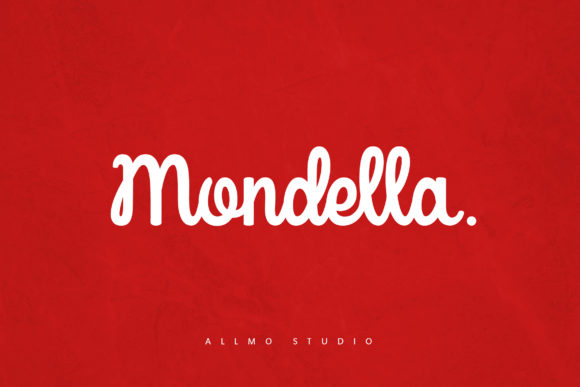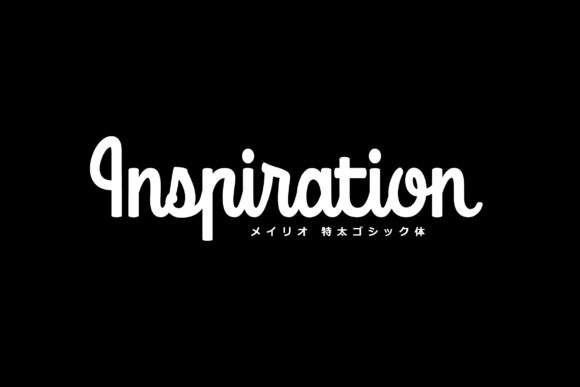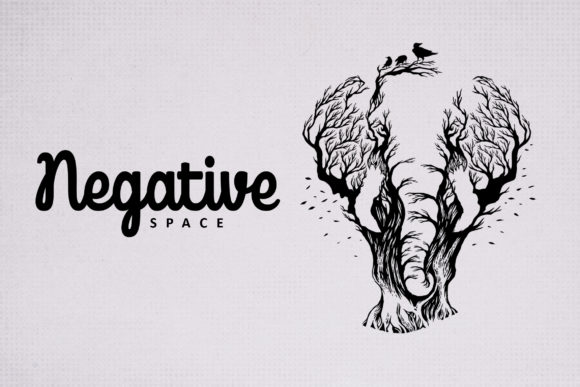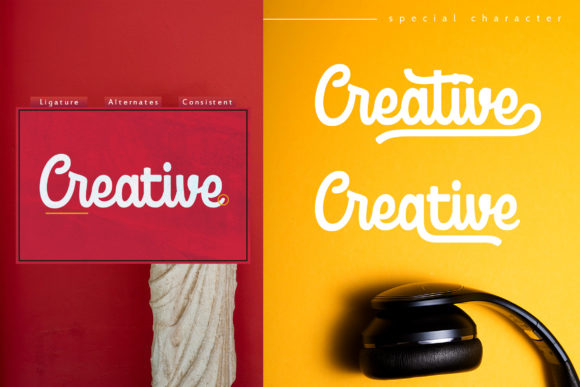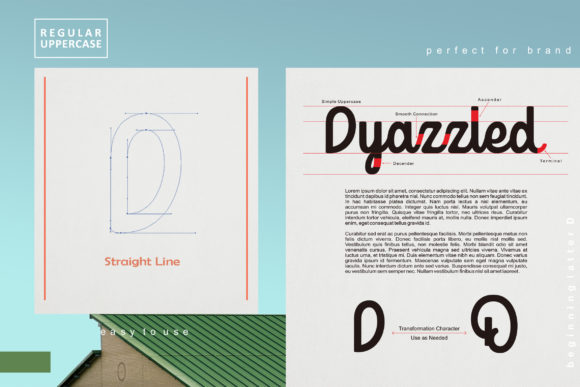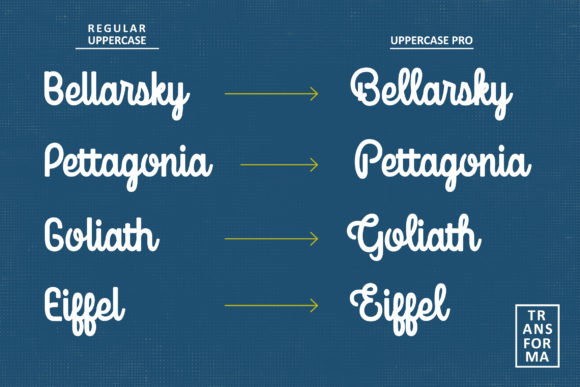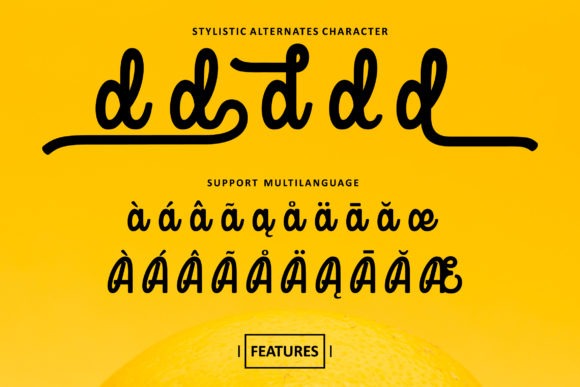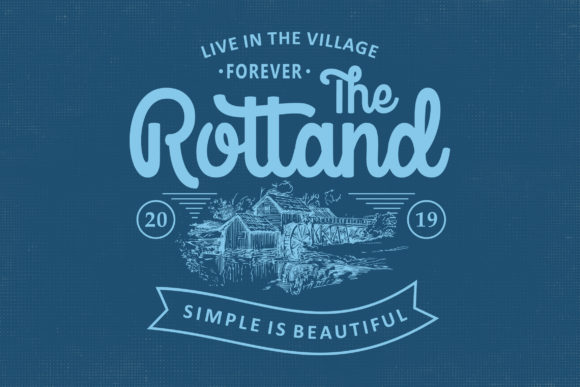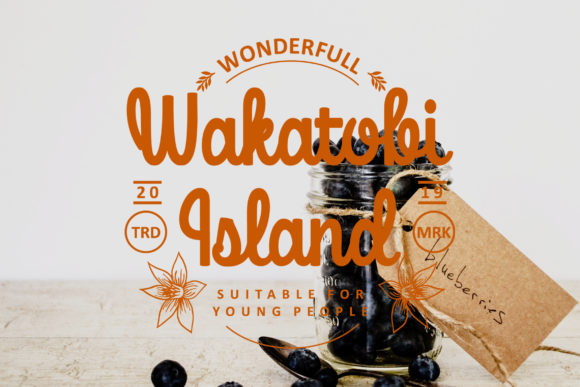
Mondella Font
About Mondella Font
Mondella is a playful, yet elegant handwritten font with a unique charm. It will put a unique twist on any design project!